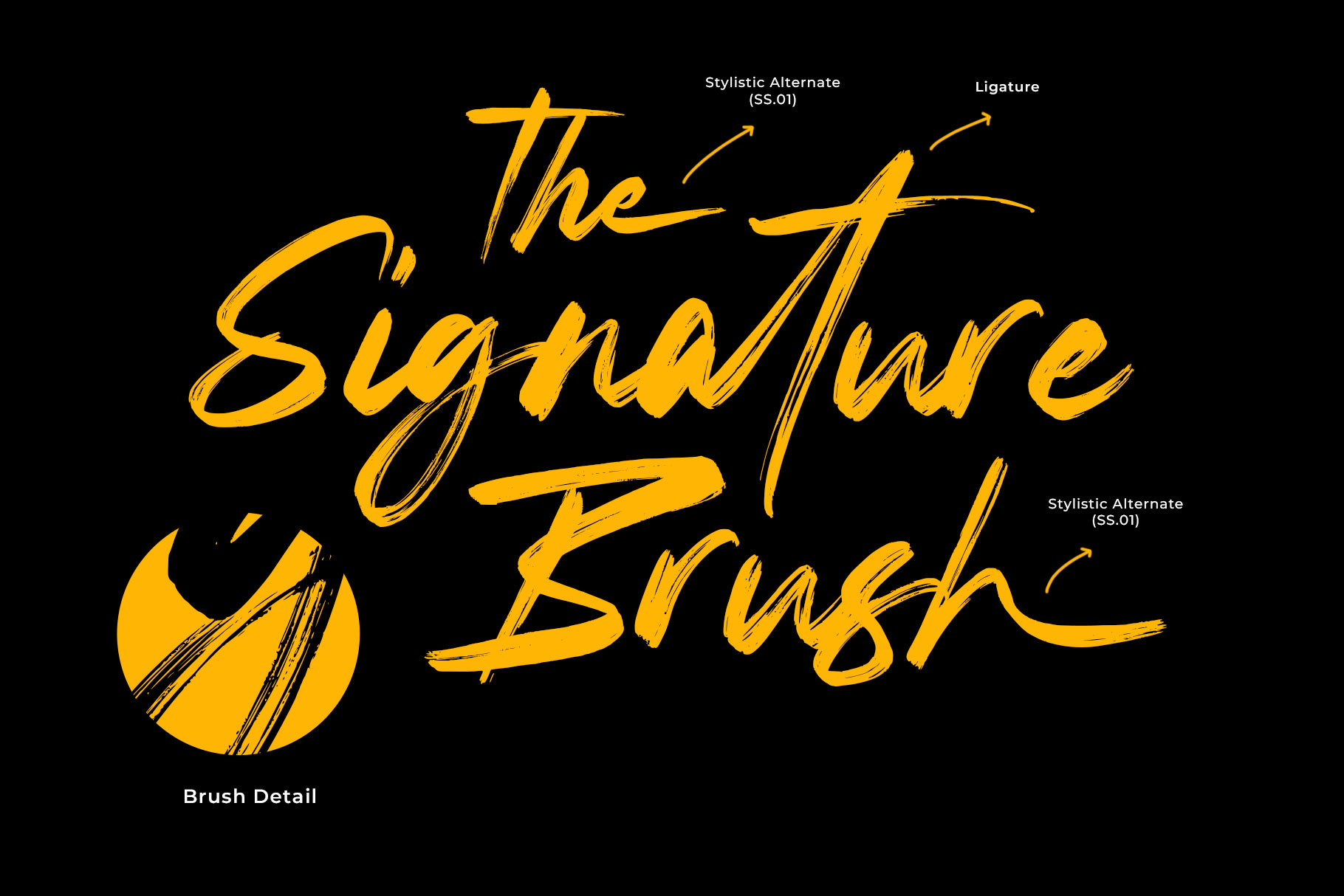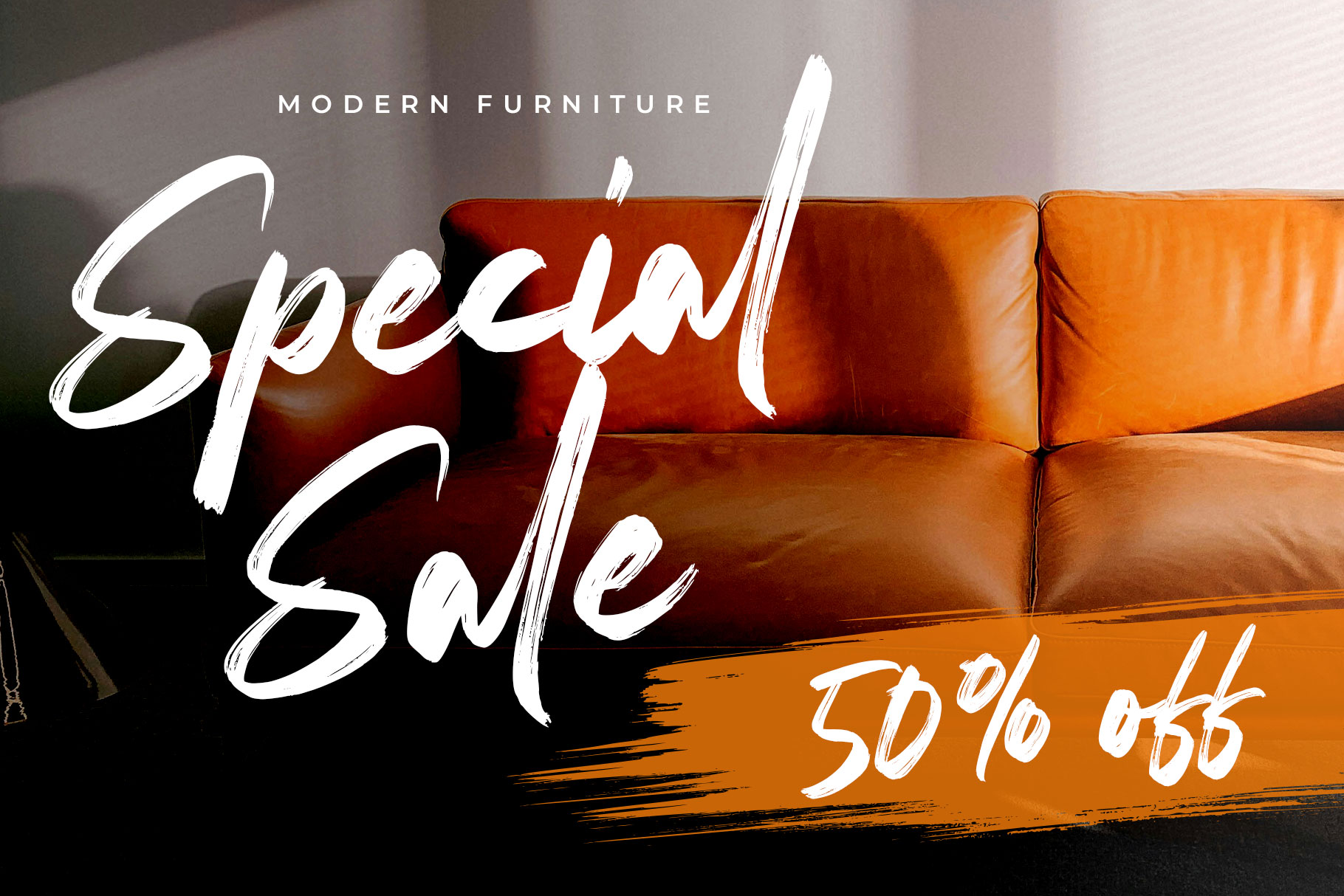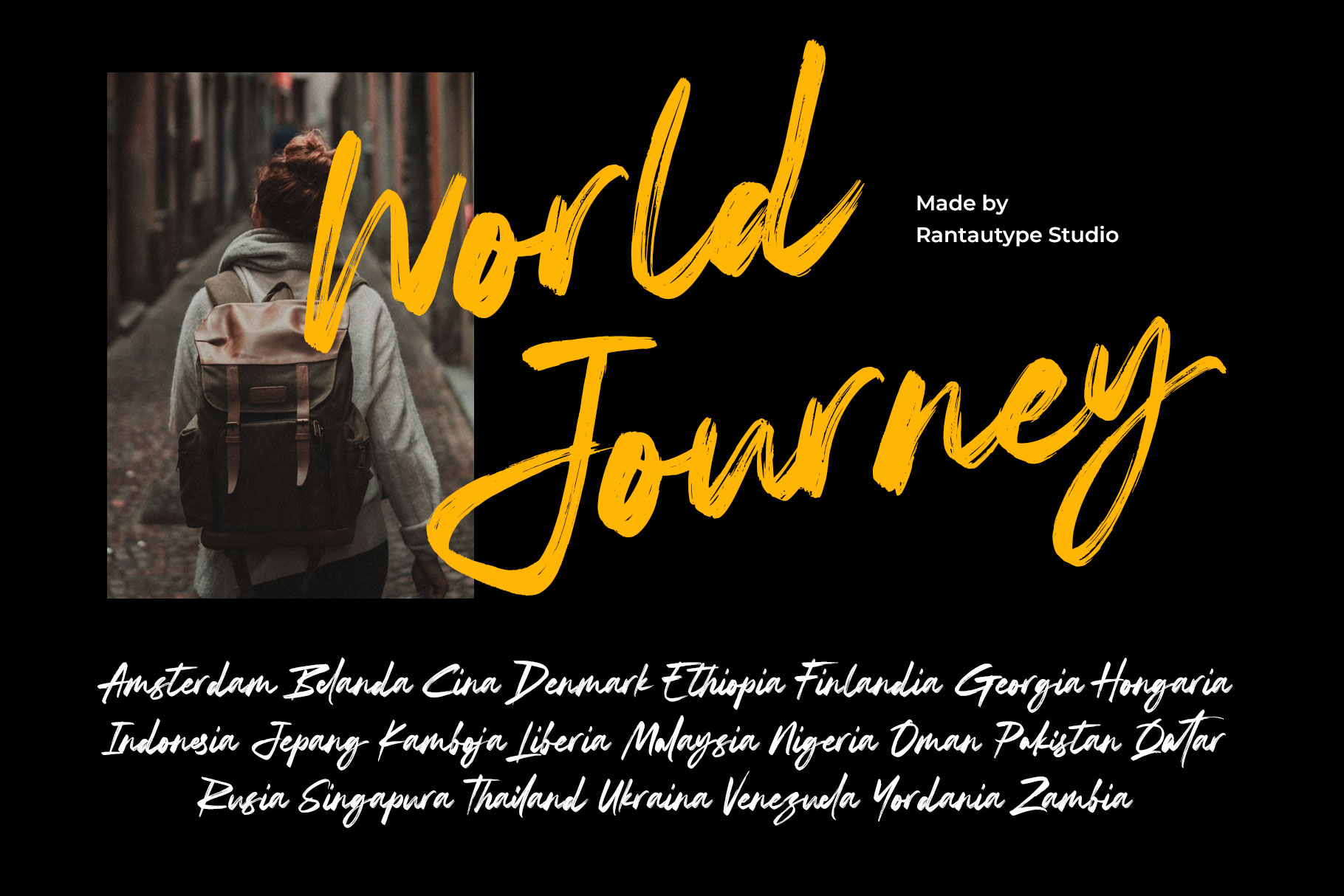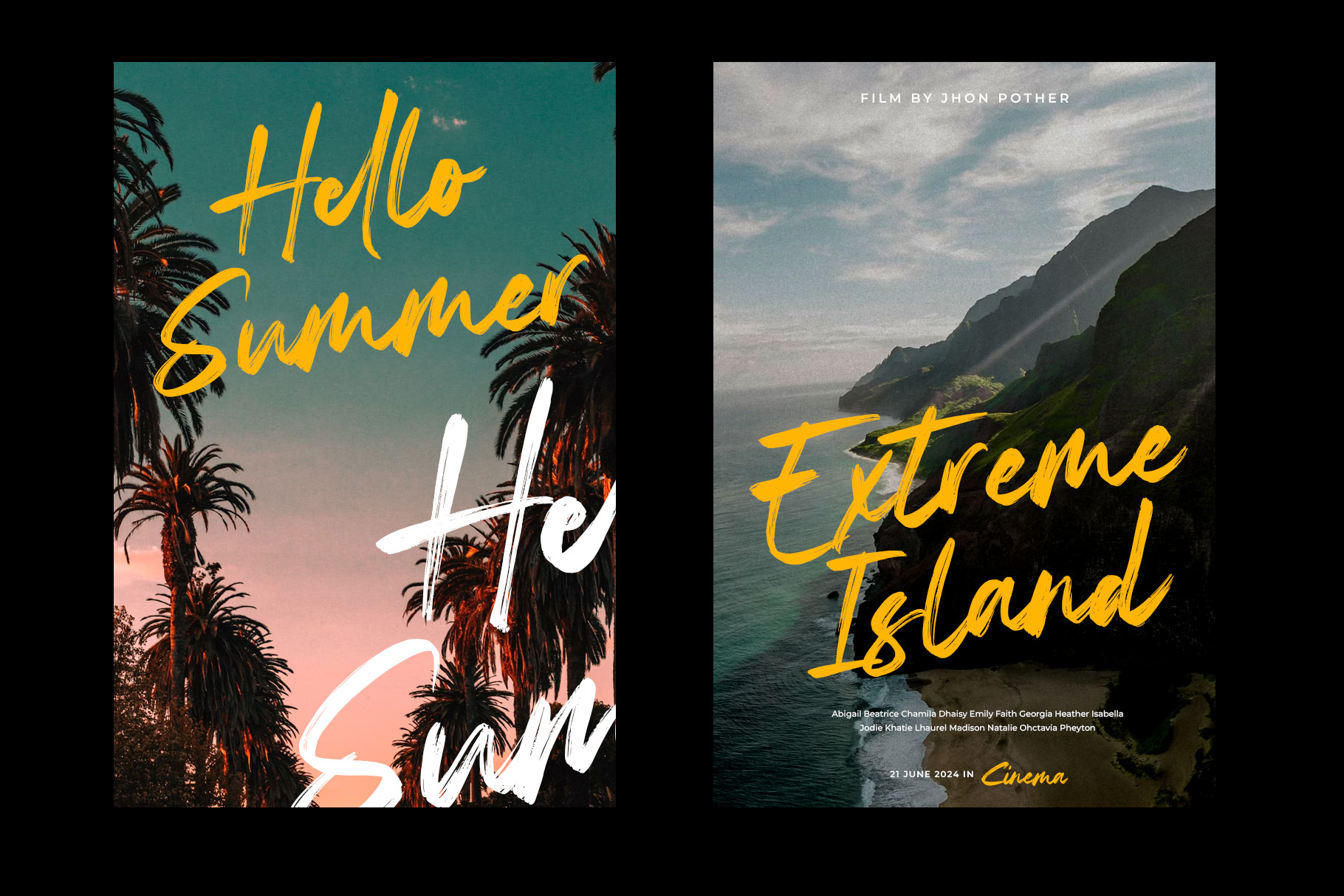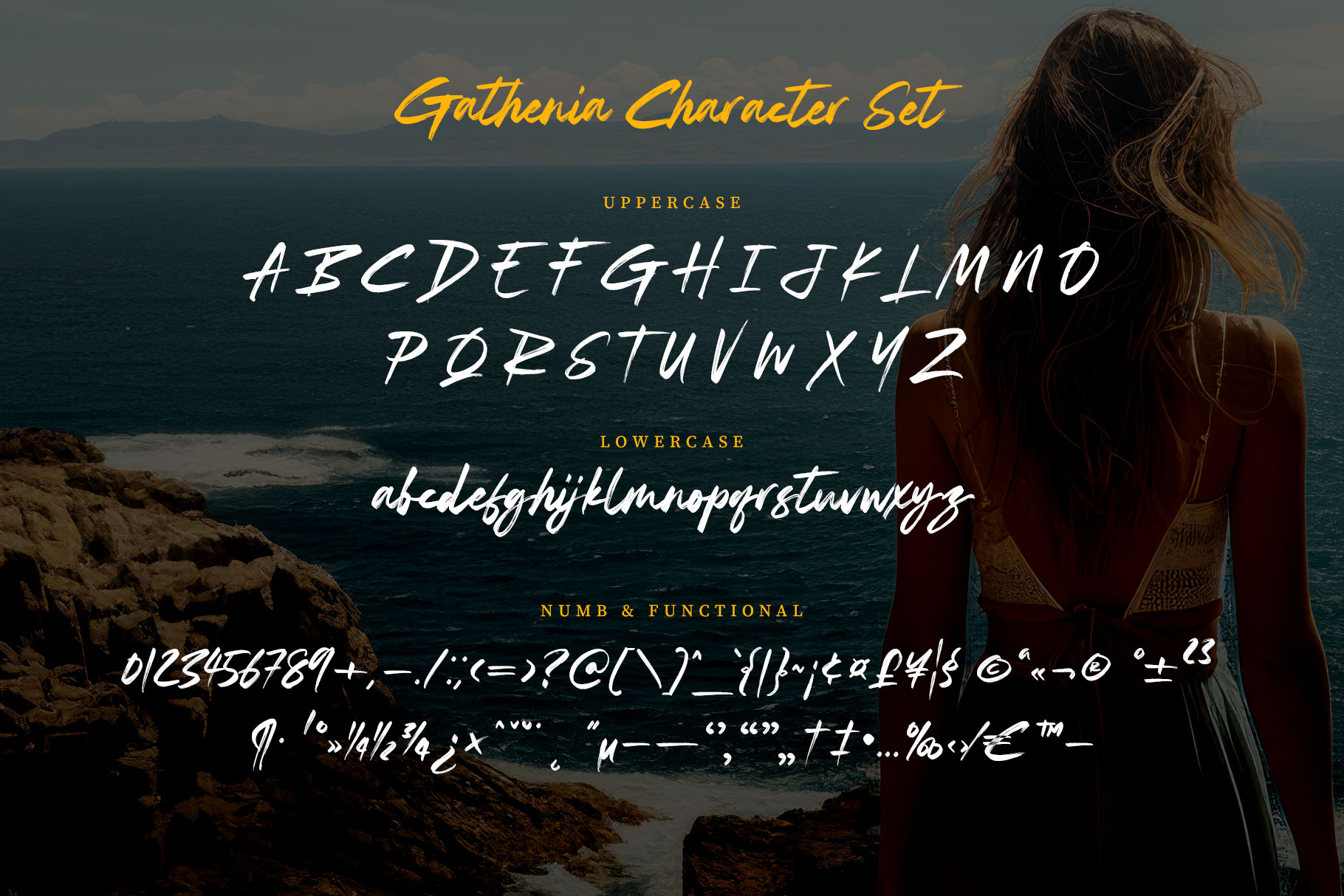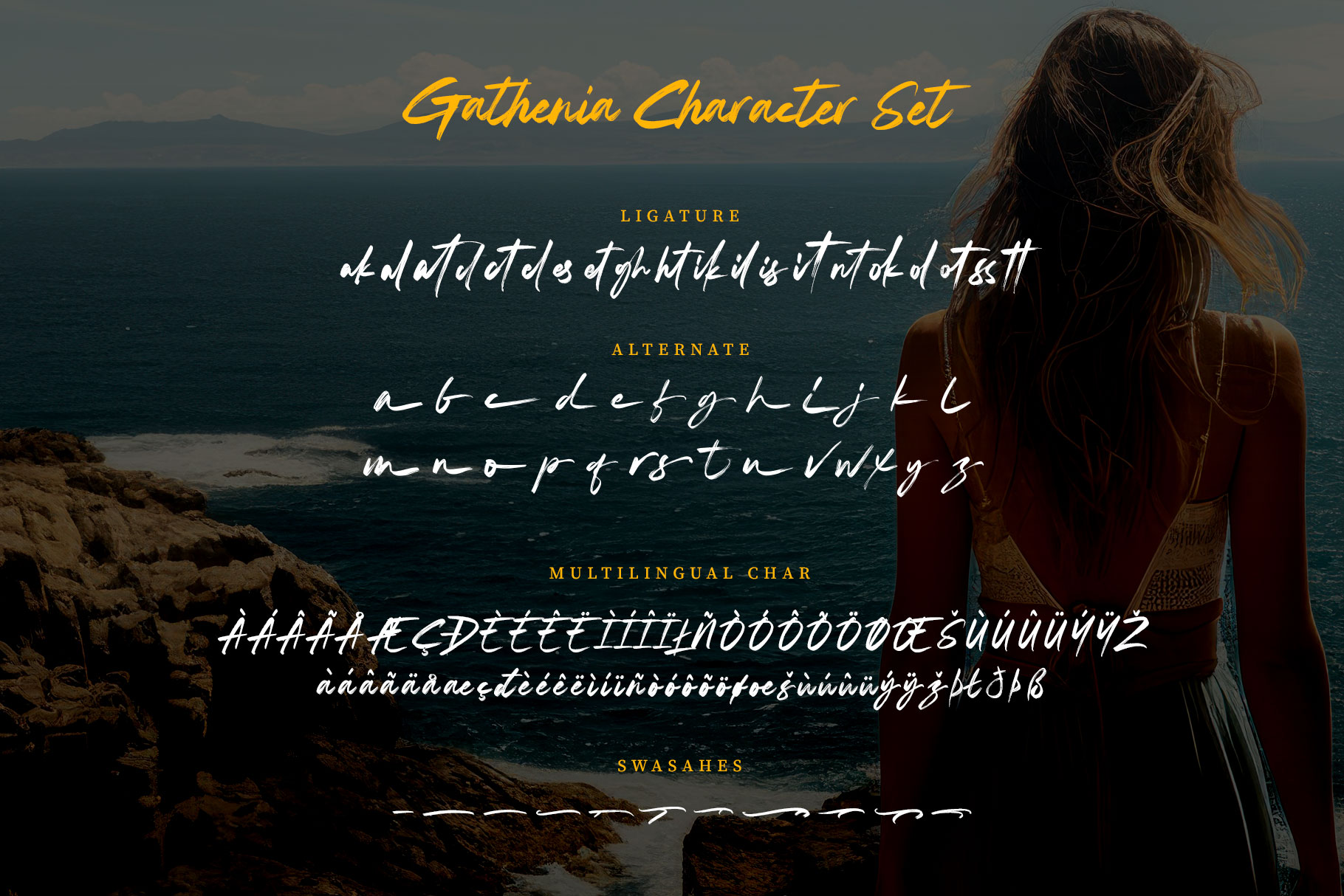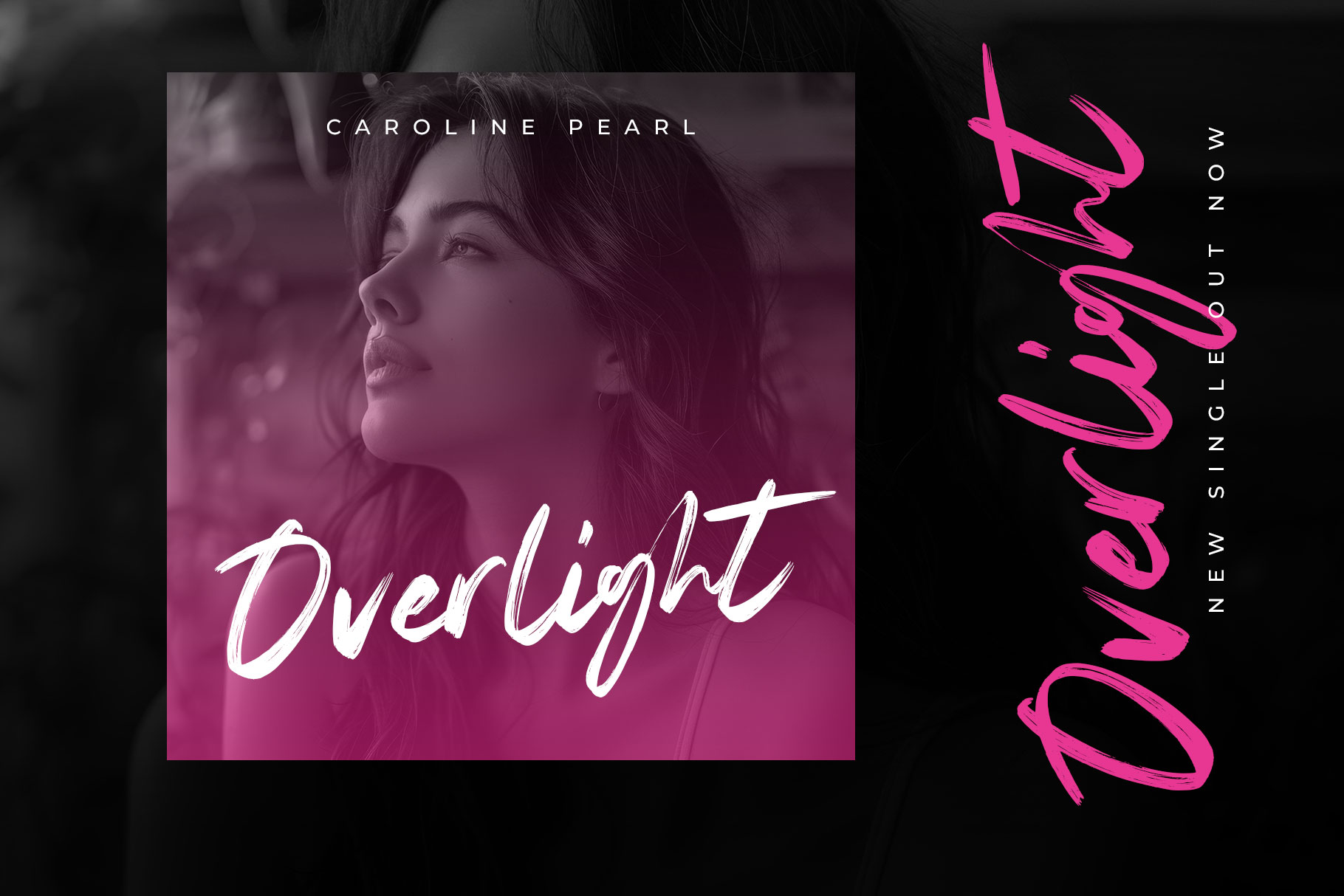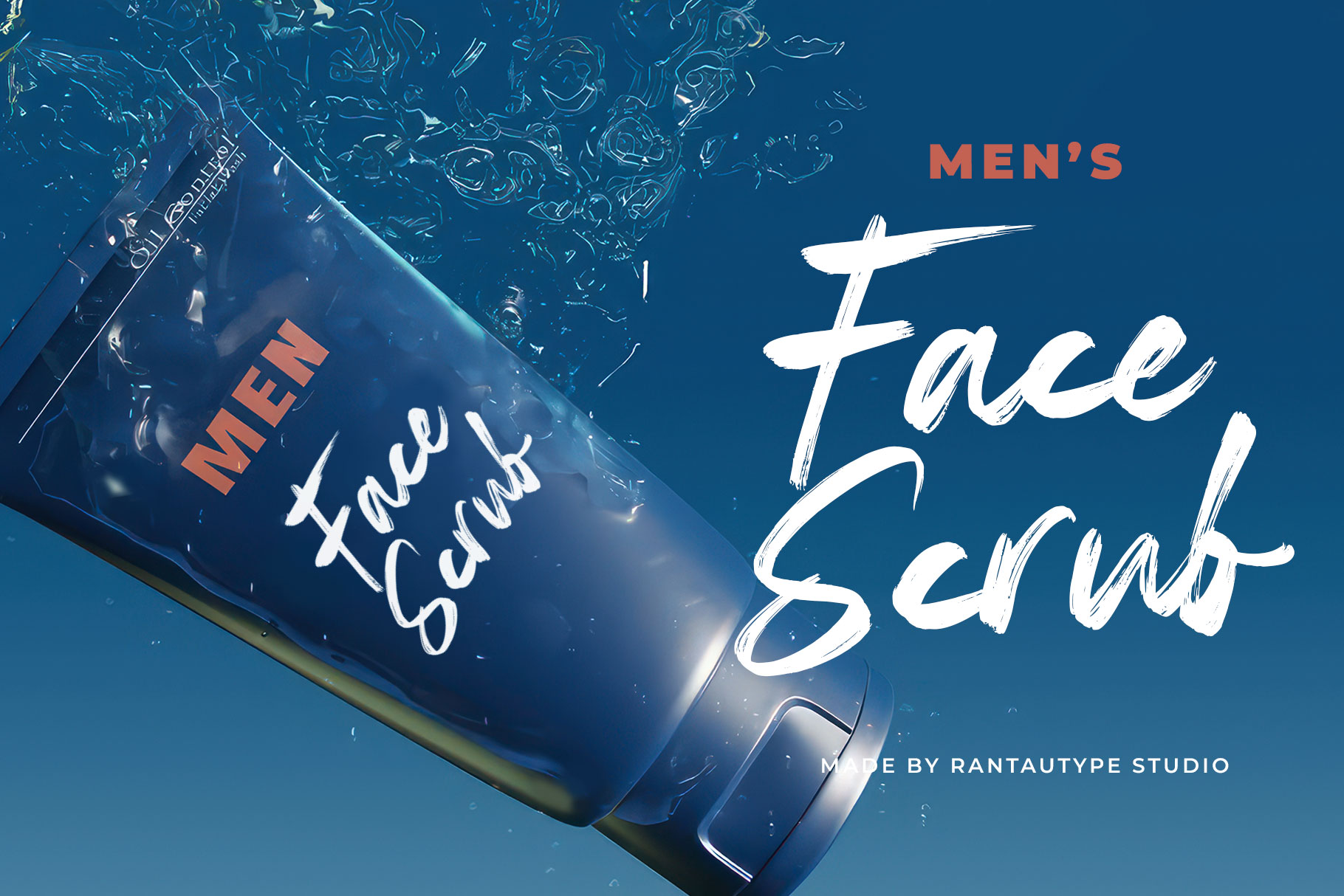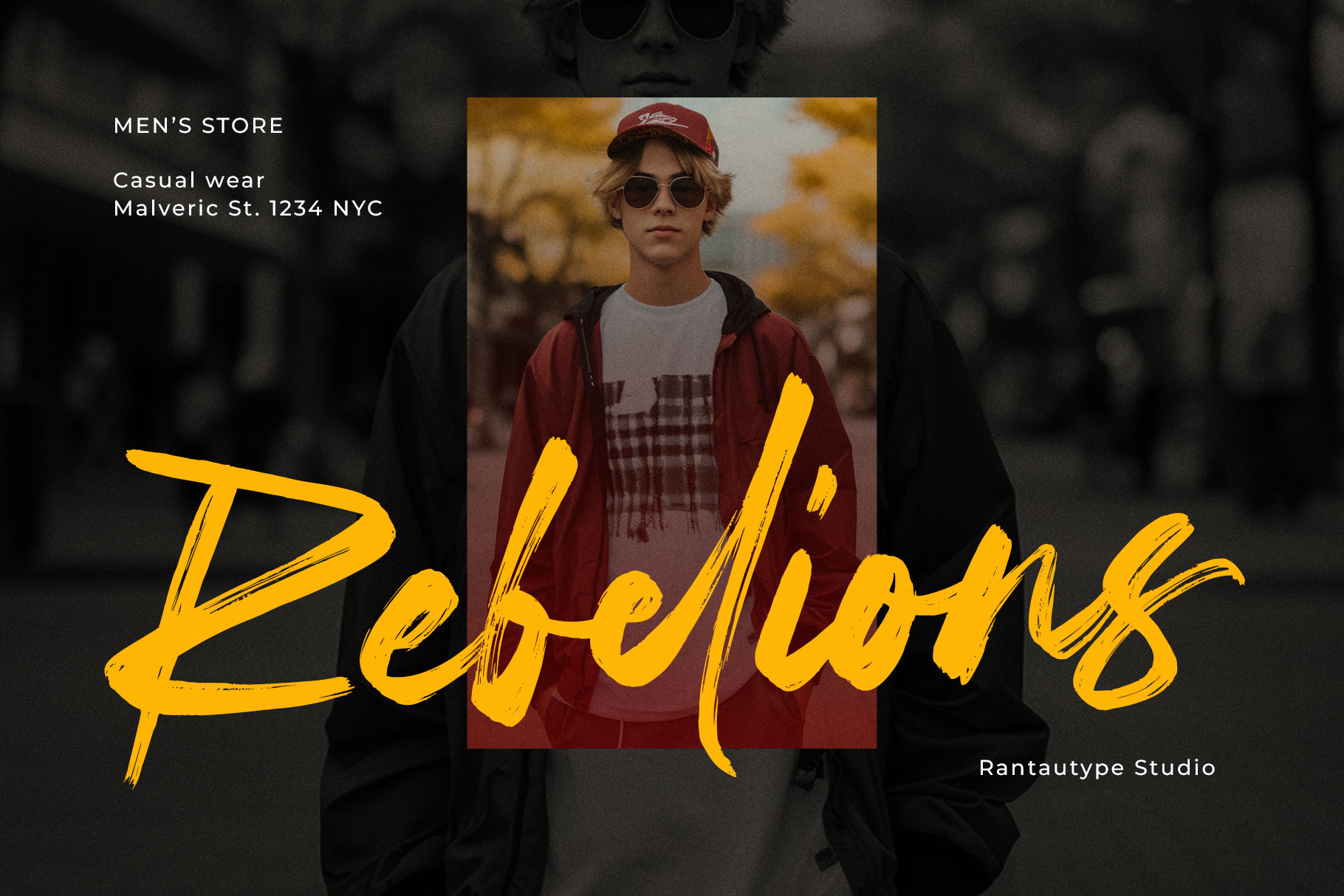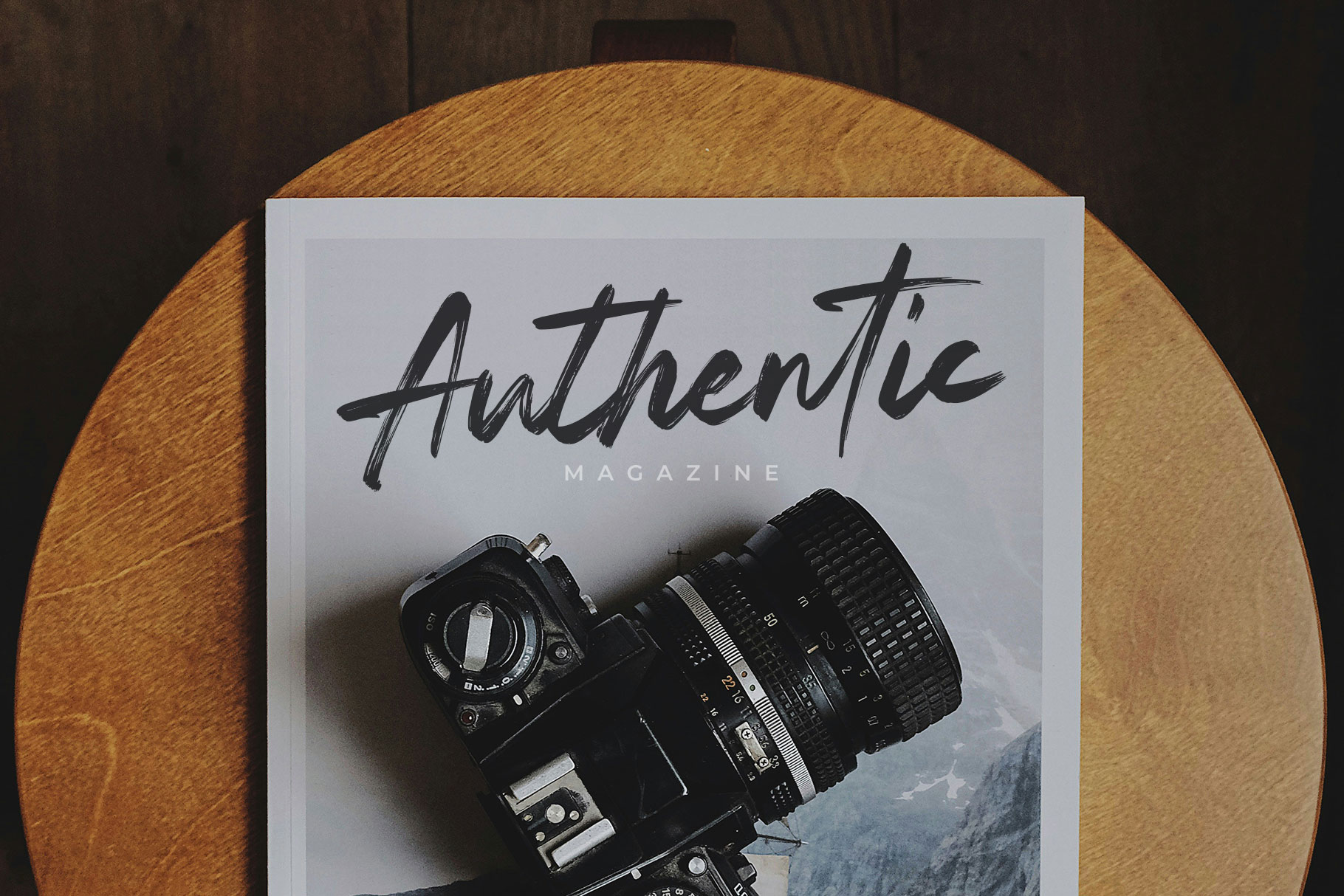
Gathenia is bold and stylish signature with swift strokes and authentic dry textures. Gathenia come with strong and confident font to help you make design project. Gathenia also come with alternate, ligature, swasahes and already support multilingual support.
Gathenia is a perfectly choice for any creative endeavor, chic, lifestyle design such as logos, advertisements, watermark on photography, stationery, branding project, display and magazine, invitation, corporate brand, product design, label, business project and other project with handwritten taste.